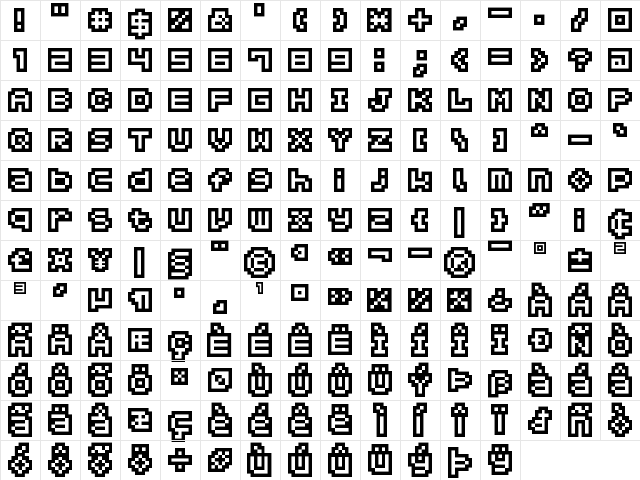
Hachicro Pro Regular
| Designer | JoohnFonts |
Design Context for Hachicro Pro Typeface
Hachicro Pro takes a measured approach to typography — its balanced proportions and neutral character make it a reliable workhorse for both digital and print work.